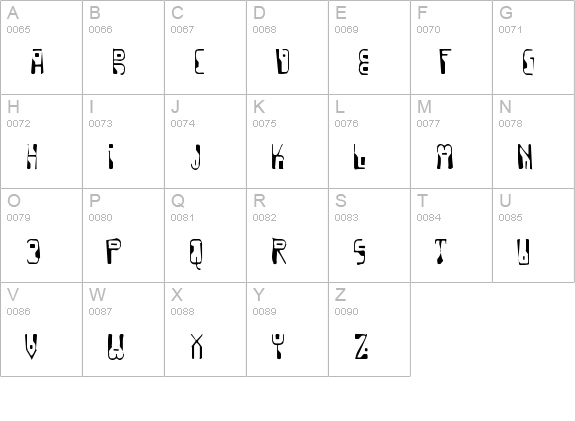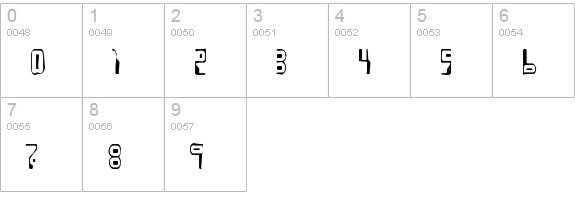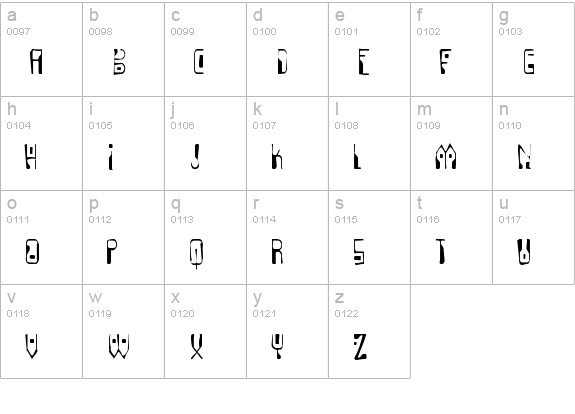
Dignity Of Labour Gaunt Font Details
Dignity Of Labour Gaunt font exudes a sense of elegance and sophistication with its sleek and refined design. This modern typeface is perfect for adding a touch of class to any project, whether it be a logo, branding, or editorial design. The clean lines and sharp angles of Dignity Of Labour Gaunt font make it versatile and eye-catching, suitable for both digital and print applications. What sets Dignity Of Labour Gaunt font apart is its ability to convey a sense of professionalism and grace, making it an ideal choice for businesses and creatives looking to make a statement. The font's bold yet understated aesthetic is sure to leave a lasting impression on viewers. Best of all, Dignity Of Labour Gaunt font is available for free download at FontsMarket.com, allowing you to add this stunning typeface to your collection without breaking the bank. Don't miss out on the opportunity to elevate your designs with the timeless beauty of Dignity Of Labour Gaunt font.